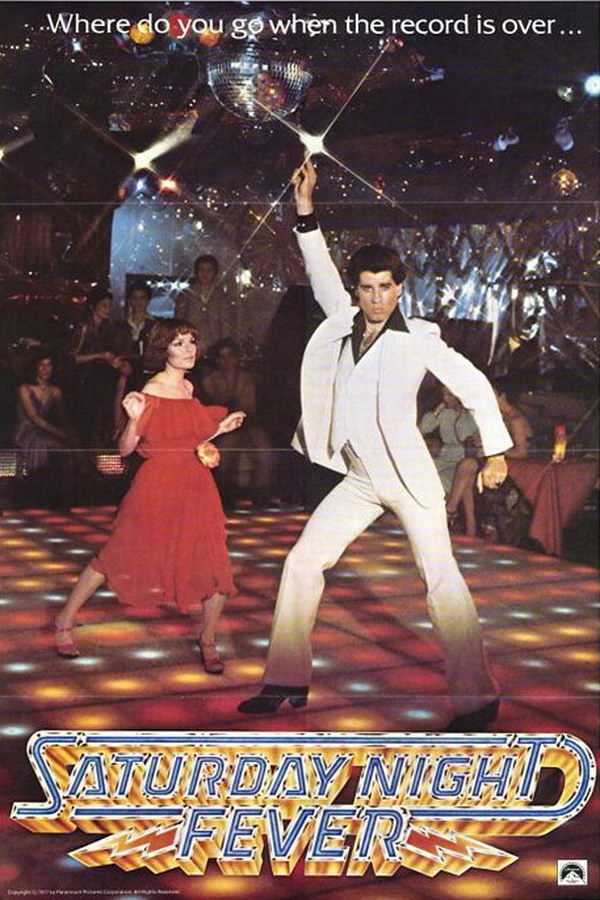
Saturday Night Fever Font
Fonts in UseSaturday Night Fever is a 1977 film that follows Tony Manero, a young man in Brooklyn who spends his weekends at the local disco. Through his passion for dancing, he dreams of a better life outside of his working-class reality.
The font utilized in the poster's film title resembles the Discotechia Italic font created by Iconian Fonts. This font is a square-shaped sans-serif font with 14 available styles, and it can be downloaded for free from the Fonts Used Section.